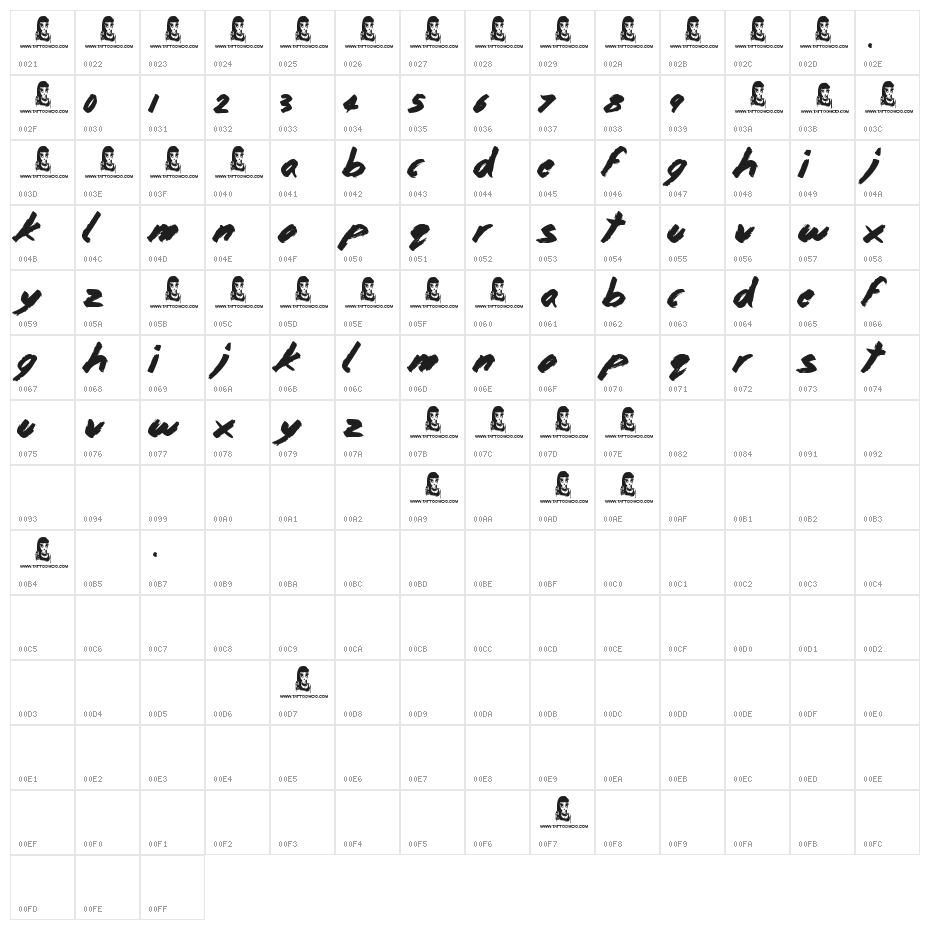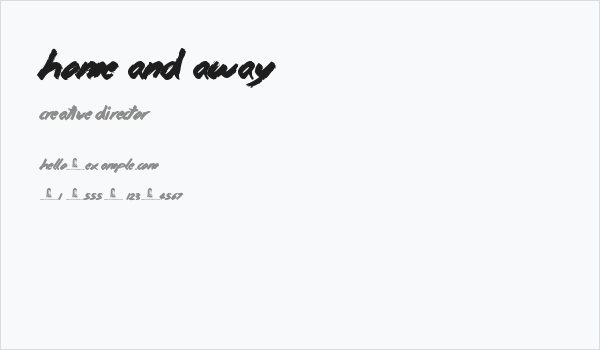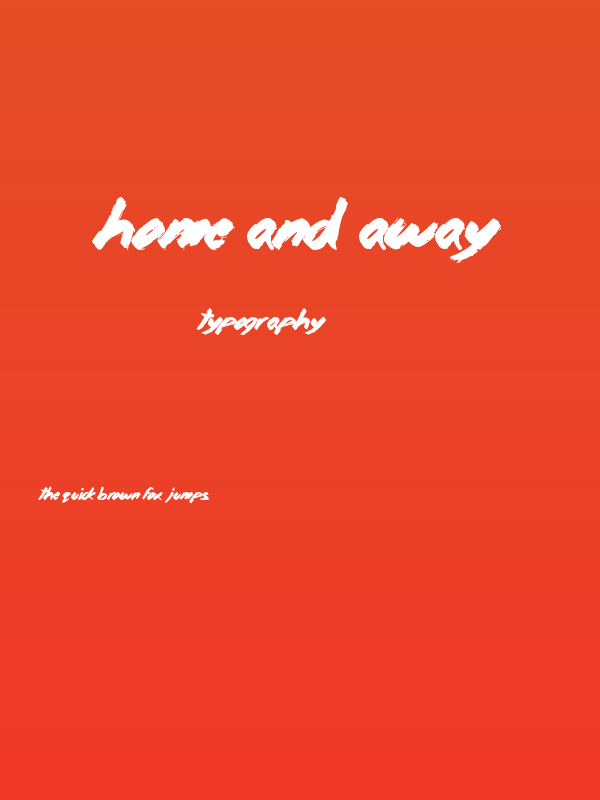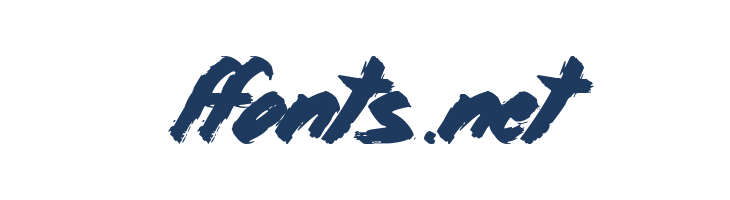
Home and Away Font
Home and Away Description
This font features a bold, brush-like style that exudes energy and dynamism. The strokes are thick and uneven, giving it a hand-painted appearance. Each character has a unique flair, with varying angles and curves that add to its expressive nature. The font maintains a consistent weight throughout, emphasizing its boldness. The overall look is artistic and slightly chaotic, making it perfect for projects that require a strong visual impact.
| Overall Style | Modern, Artistic |
| Proposed Projects | Ideal for posters, album covers, branding for creative industries, and any design needing a bold, artistic touch. |